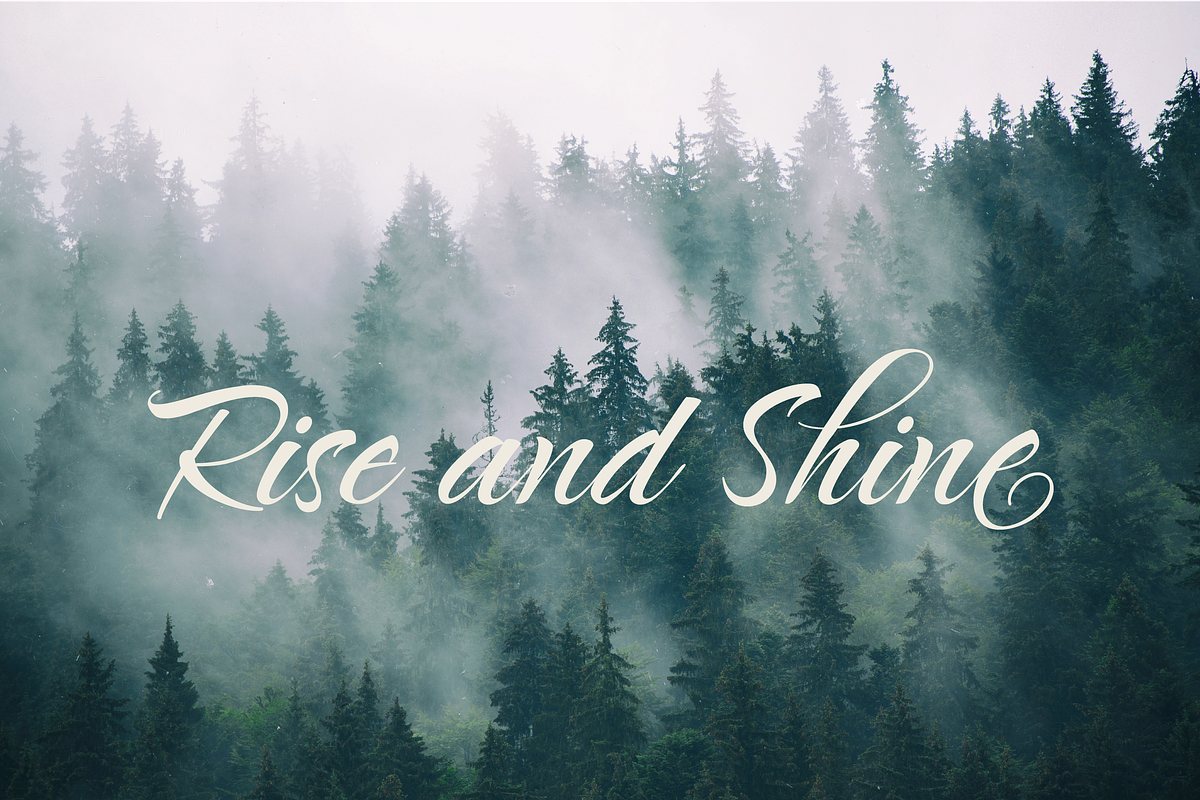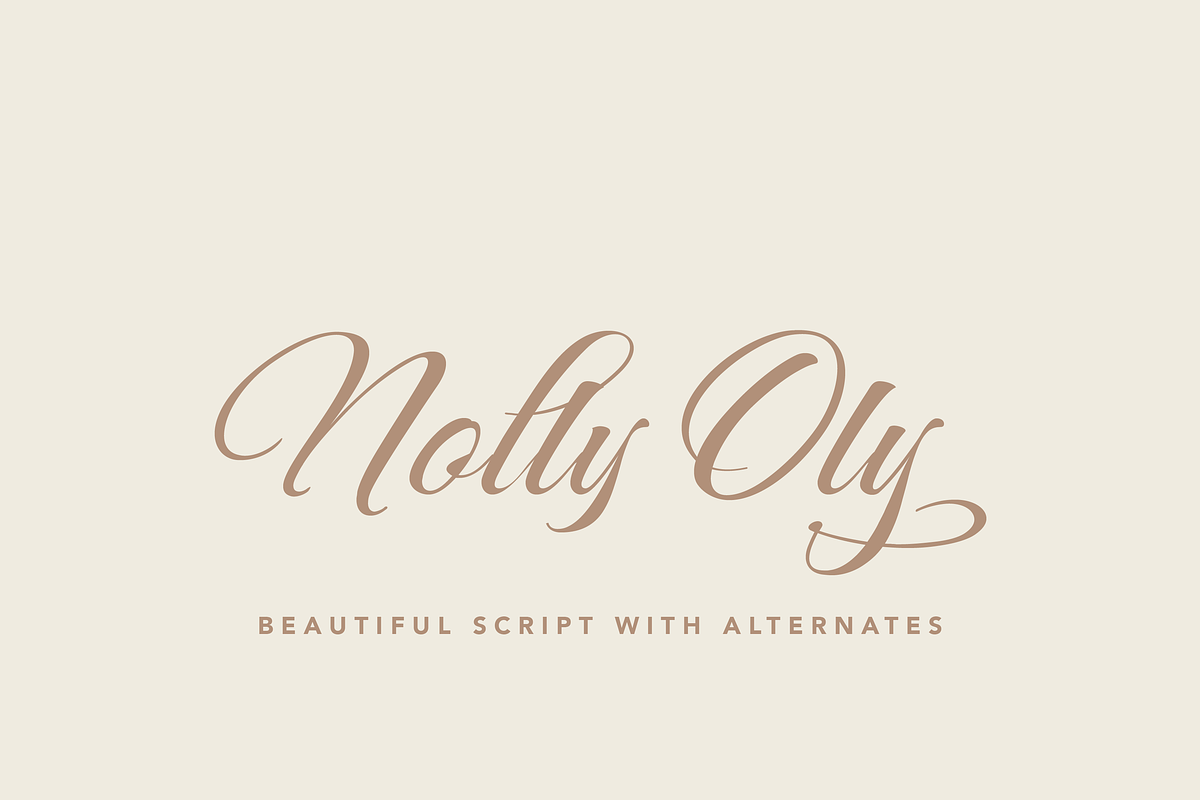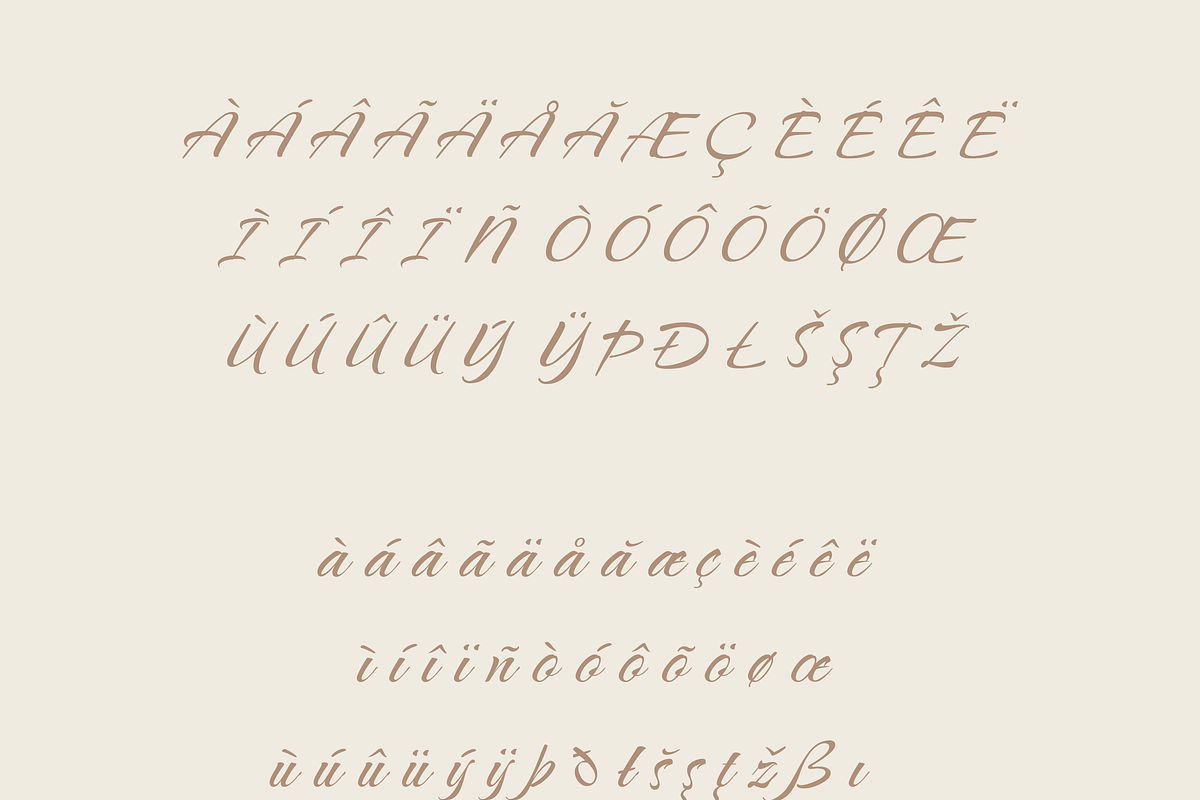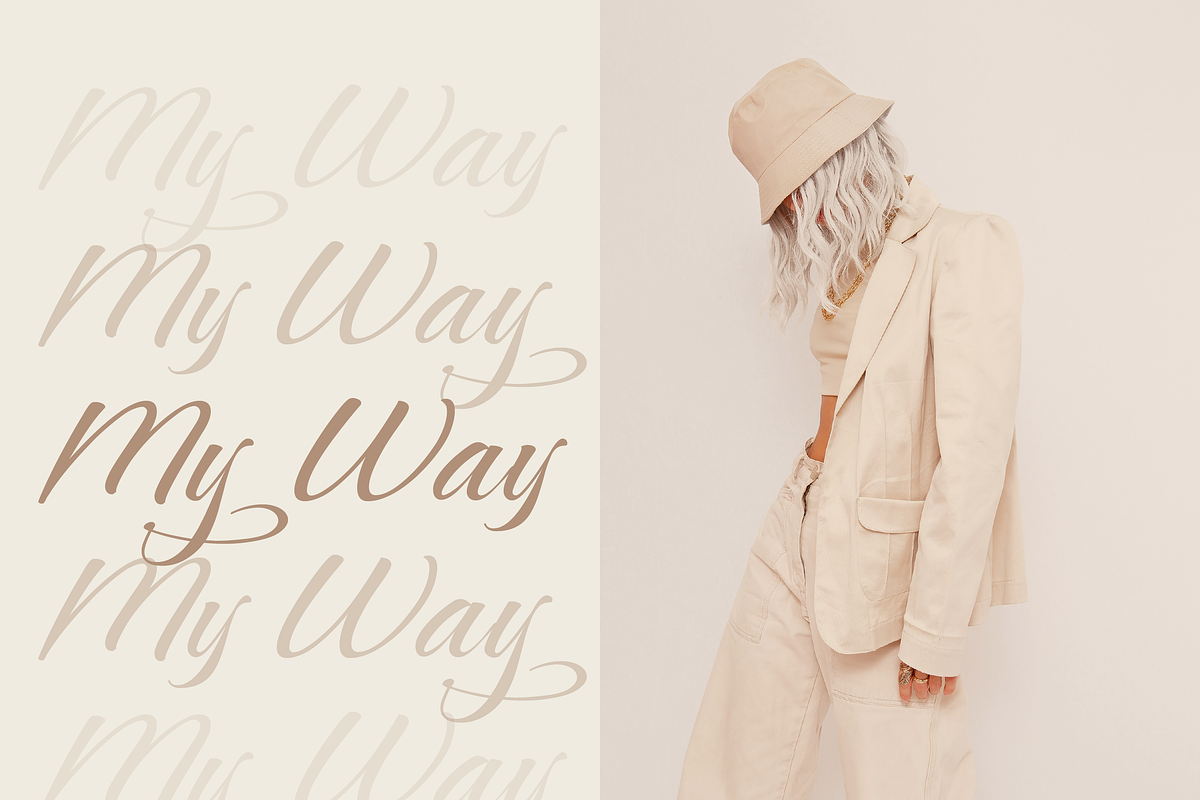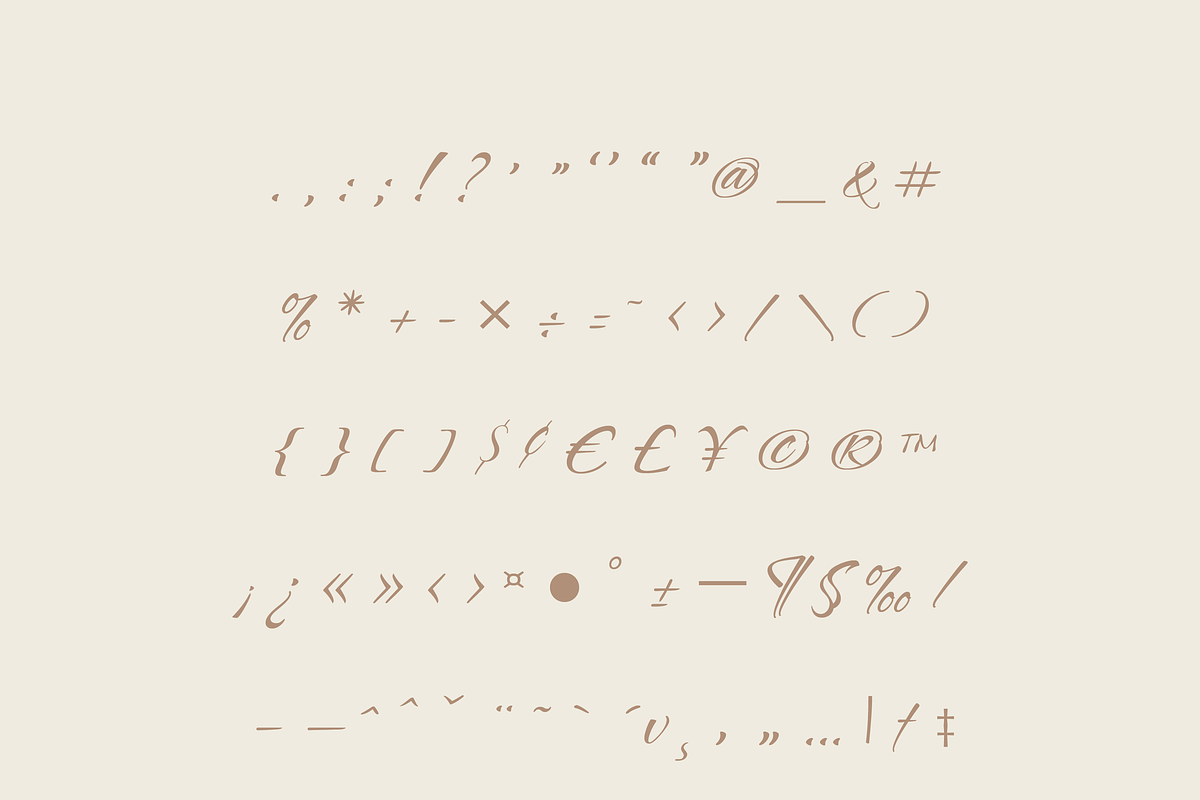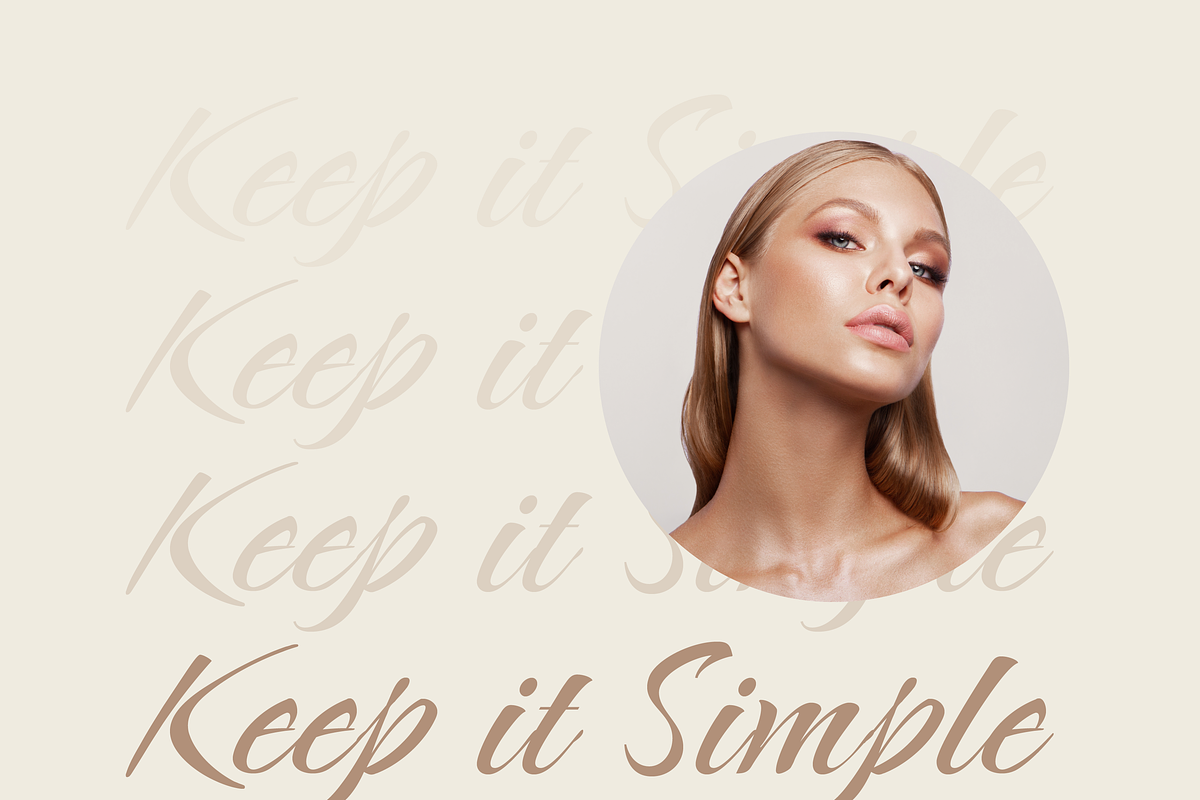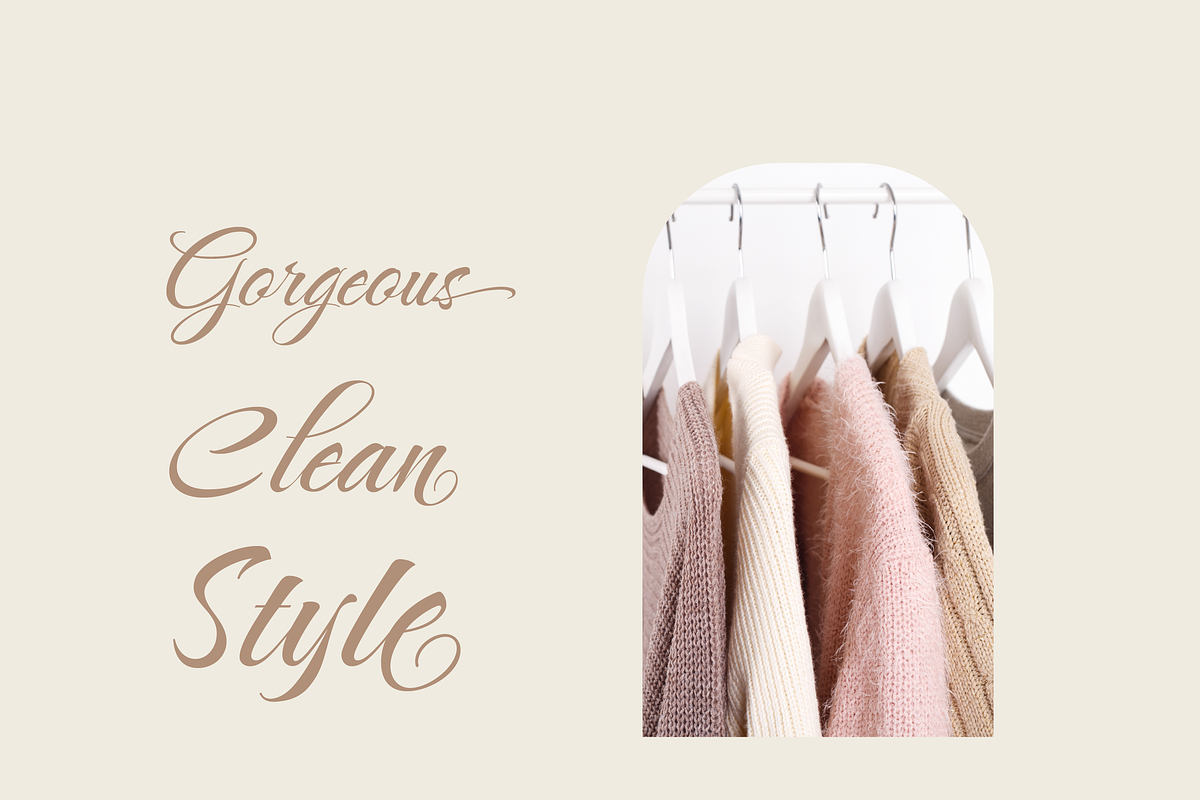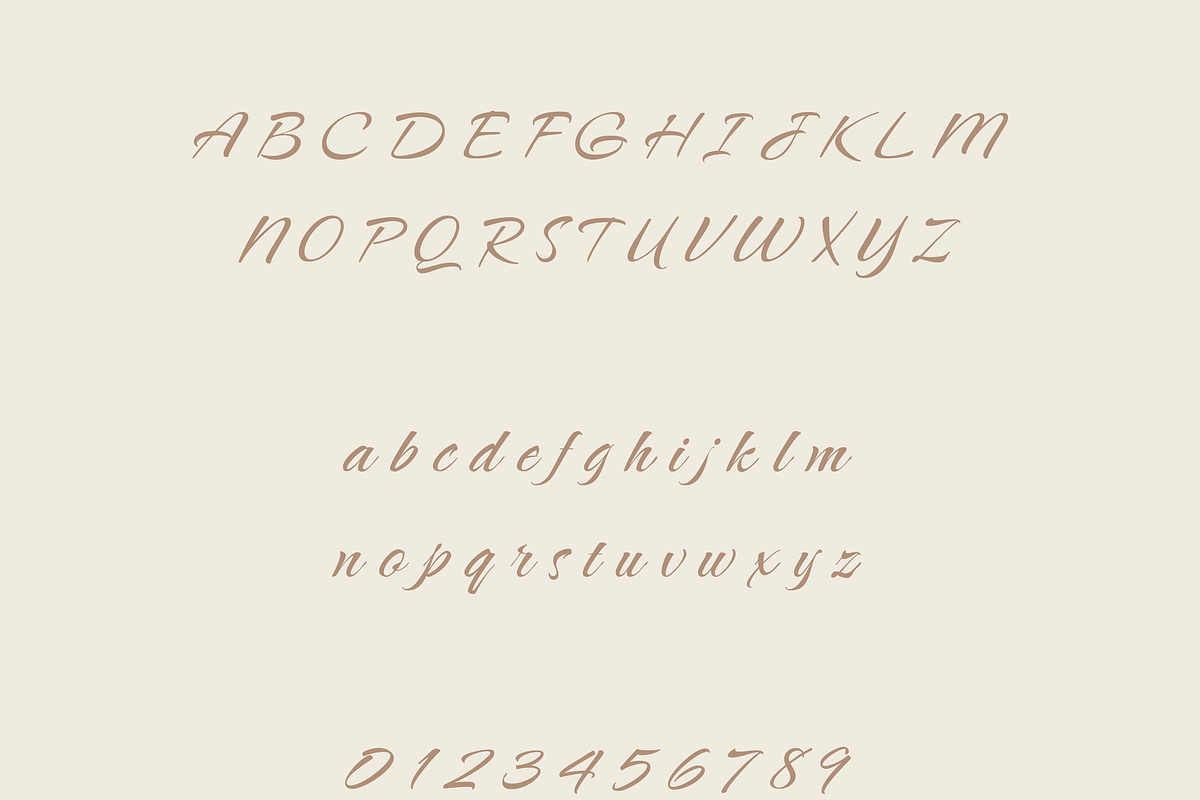
Nolly Oly Wedding Calligraphy Script
Nolly Oly – A Fun and Customizable Hand-Lettered Script
Nolly Oly is a playful and expressive hand-lettered script font designed to bring energy and personality to your projects. With three unique variations in its latest version, this versatile typeface allows for endless customization using alternates and stylistic sets, ensuring that every design feels fresh and personal.
Perfect for invitations, branding, packaging, and casual design projects, Nolly Oly effortlessly blends charm and creativity. Its smooth, organic strokes create a warm and friendly aesthetic, making it an excellent choice for projects that need a touch of whimsy and authenticity.